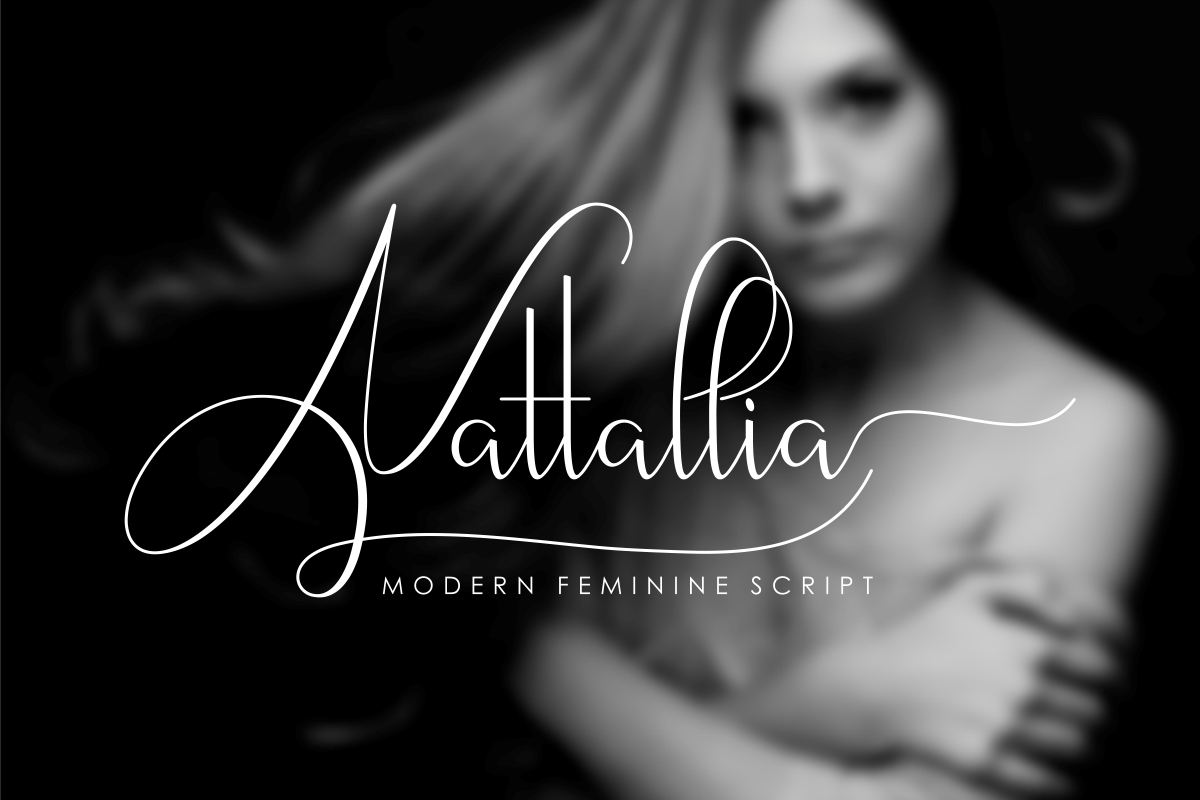
Nattallia Modern Feminine Script
Nattallia Modern Feminine Script has been present.
Nattallia
is a beautiful modern calligraphic typography, which combines classic
calligraphic style with modern and elegant style. Alternate features and characters Included. including initial letters and terminals, alternatives, ligatures and various language support.
The right font selection for book covers, business cards, brand names, etc.